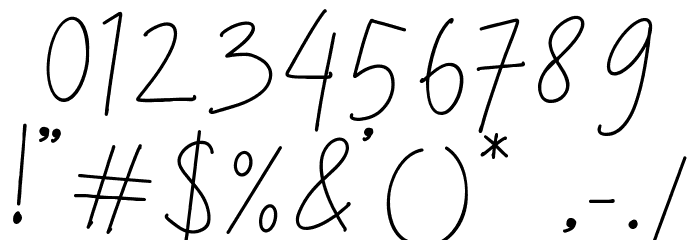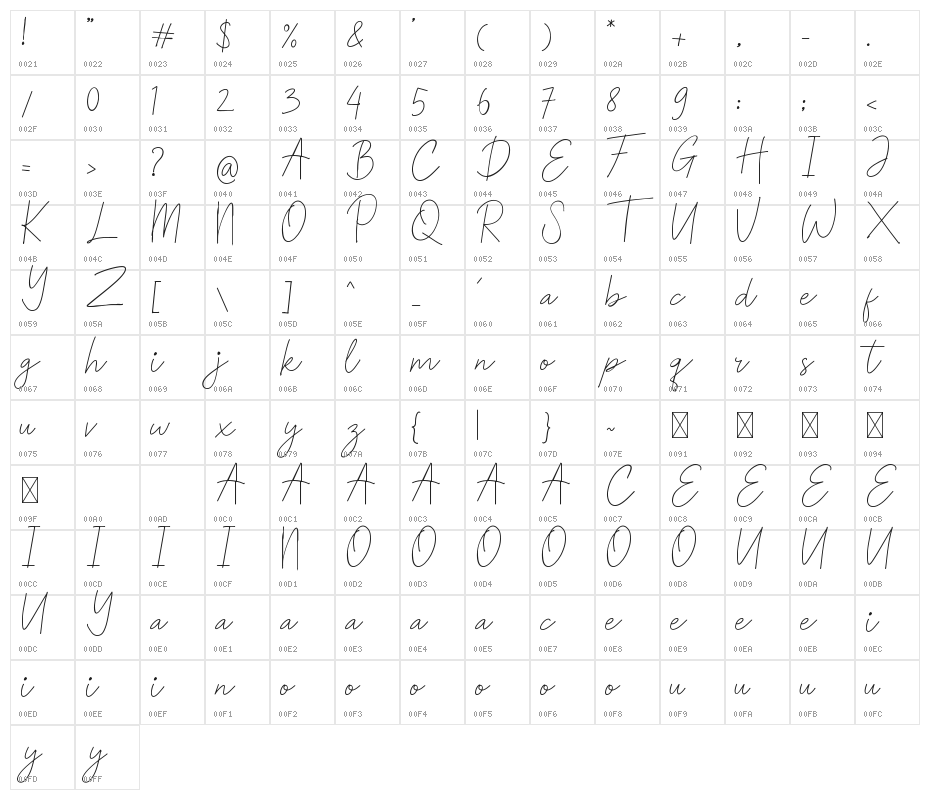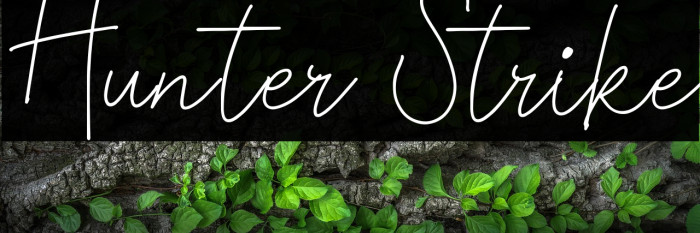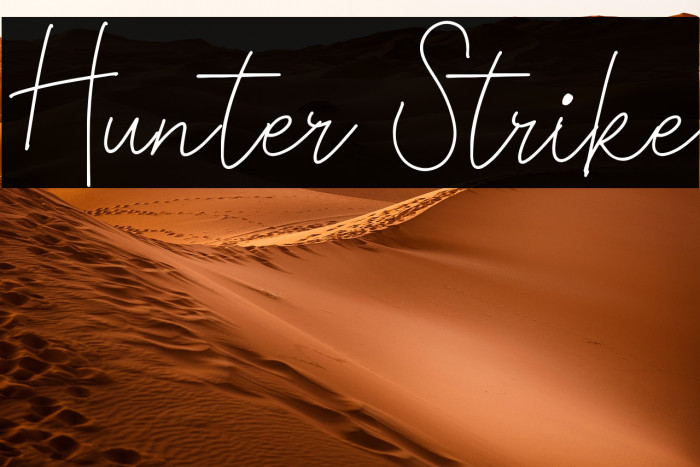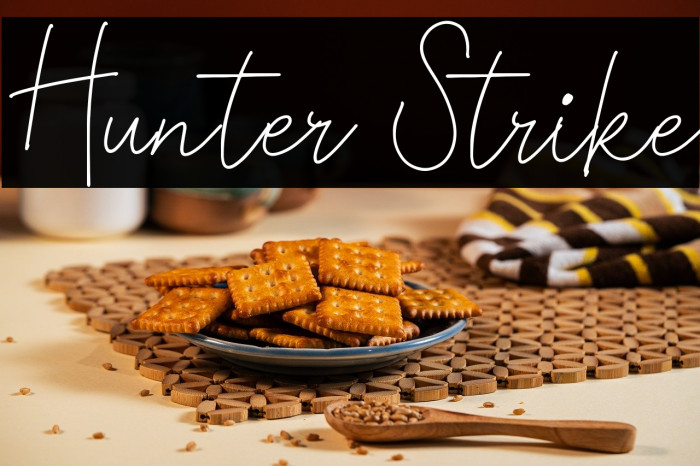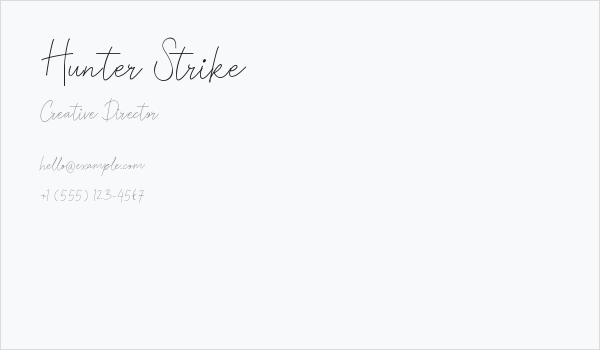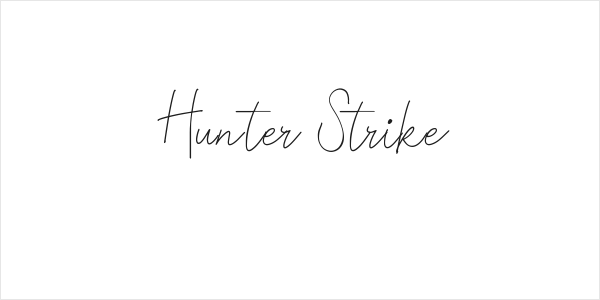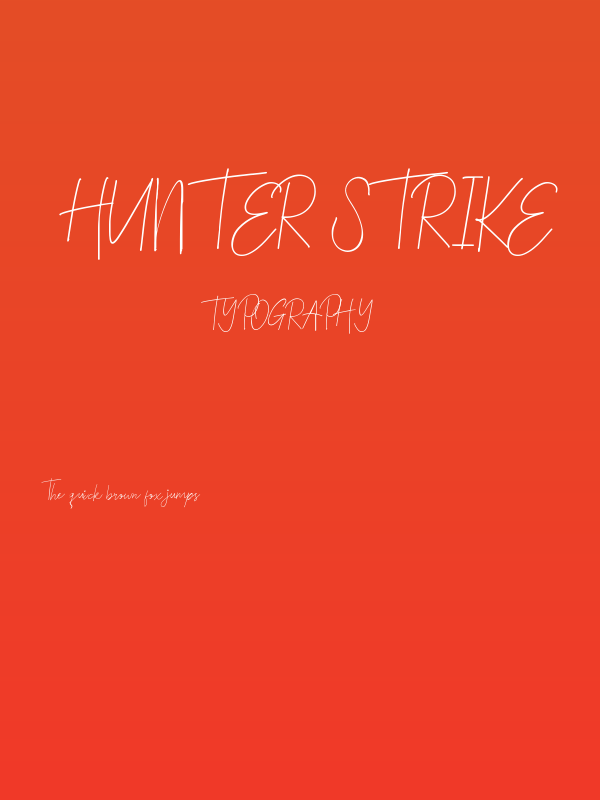
Hunter Strike Font
Hunter Strike Description
This font features a casual, handwritten style with a playful and flowing script. The uppercase letters are tall and slender, with a slight slant that adds a dynamic feel. Lowercase letters maintain a consistent flow, with smooth curves and loops that enhance its handwritten appearance. The numerals are clear and legible, matching the overall style with a slight tilt. Special characters are creatively integrated, maintaining the font's cohesive look. This font's informal and friendly nature makes it suitable for projects that require a personal touch.